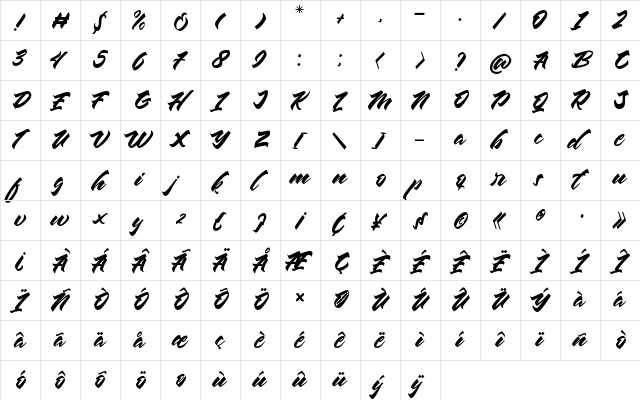
Chesnut Regular
| Foundry | Typotopia |
| Designer | Typotopia |
Design Context for Chesnut Typeface
Chesnut is a composed and adaptable typeface that performs quietly and consistently across a wide range of design contexts.